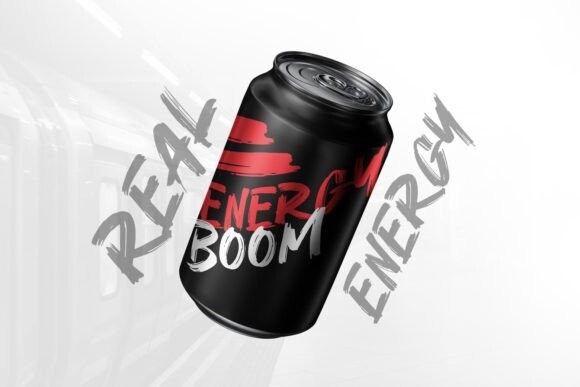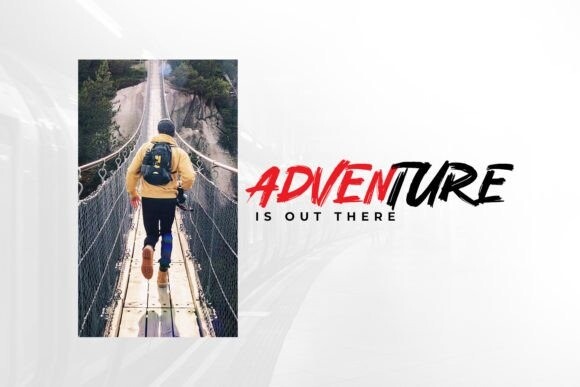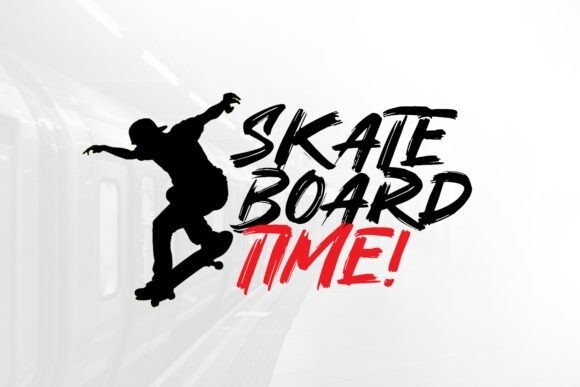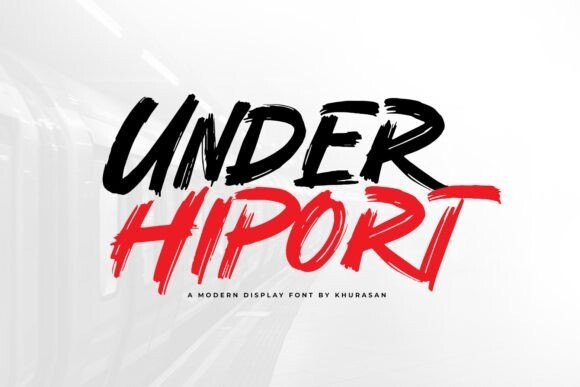
Under Hiport Font
Under Hiport Font is a bold hand drawn all-caps marker typeface that has really original brush edges and is rough in every stroke. This font is perfect for posters, logos, magazines, book covers, banners, and many more! Get this quirky handwritten font, and use it to create lovely designs! It can easily be matched to an incredibly large set of projects, so add it to your creative ideas and notice how it makes them stand out!